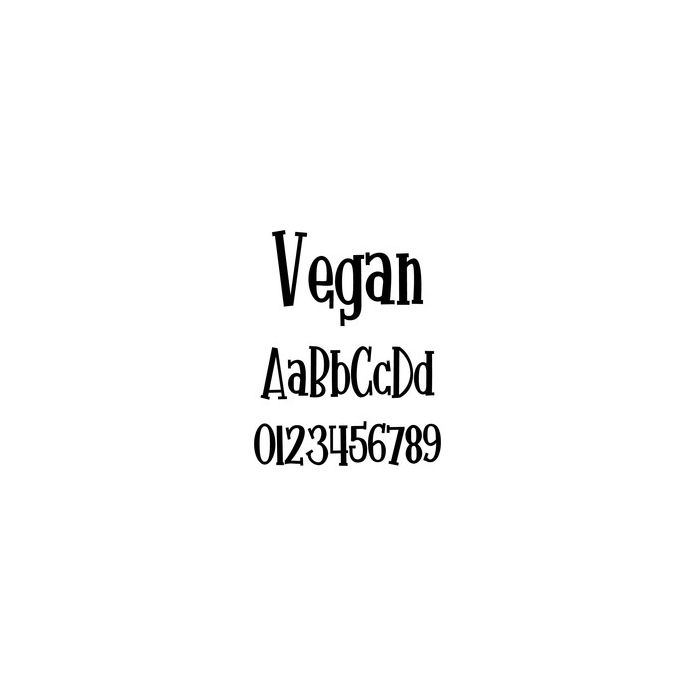
This fun serif style bold font is perfect lettering for journaling, posters and more! For more fun fonts like this please visit: http://www.letteringdelights.com/lettering/fonts-c1c3